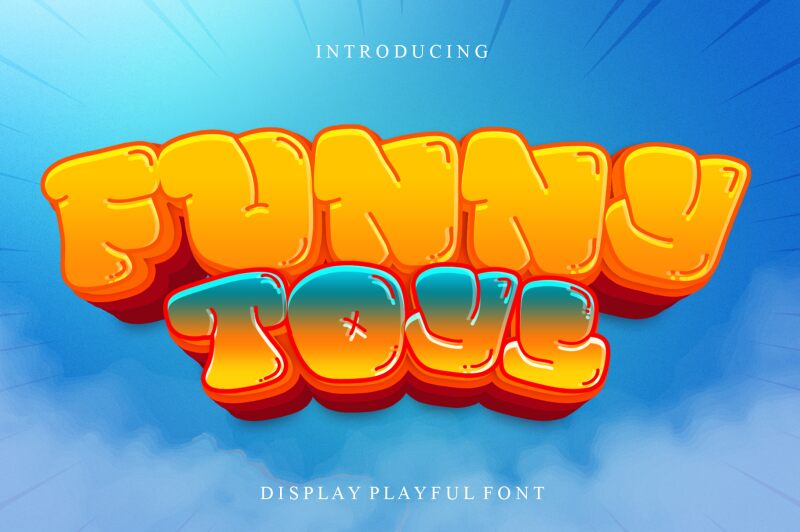
Funny Toys font by Letterafa Studio is a display font with bubbly, rounded, and whimsical characters. The bold style is inspired by retro-type designs of the 1960s and 70s pop culture styles. Present-day uses can be found for children’s product packaging where the soft appearance brings a friendly mood. Groovy line movement makes each character flowing both in headlines and within short paragraphs.
Set up this font for playful branding identities that appeal to younger audiences or even youthful adult demographics. Funny Toys is applicable in toy packagings, video game covers, sleepover posters or invitations, toys packages insert cards and slogans. Common editorial uses can cover magazine or children’s book covers; moving to web pages this would suffice for full landing pages in animated websites.